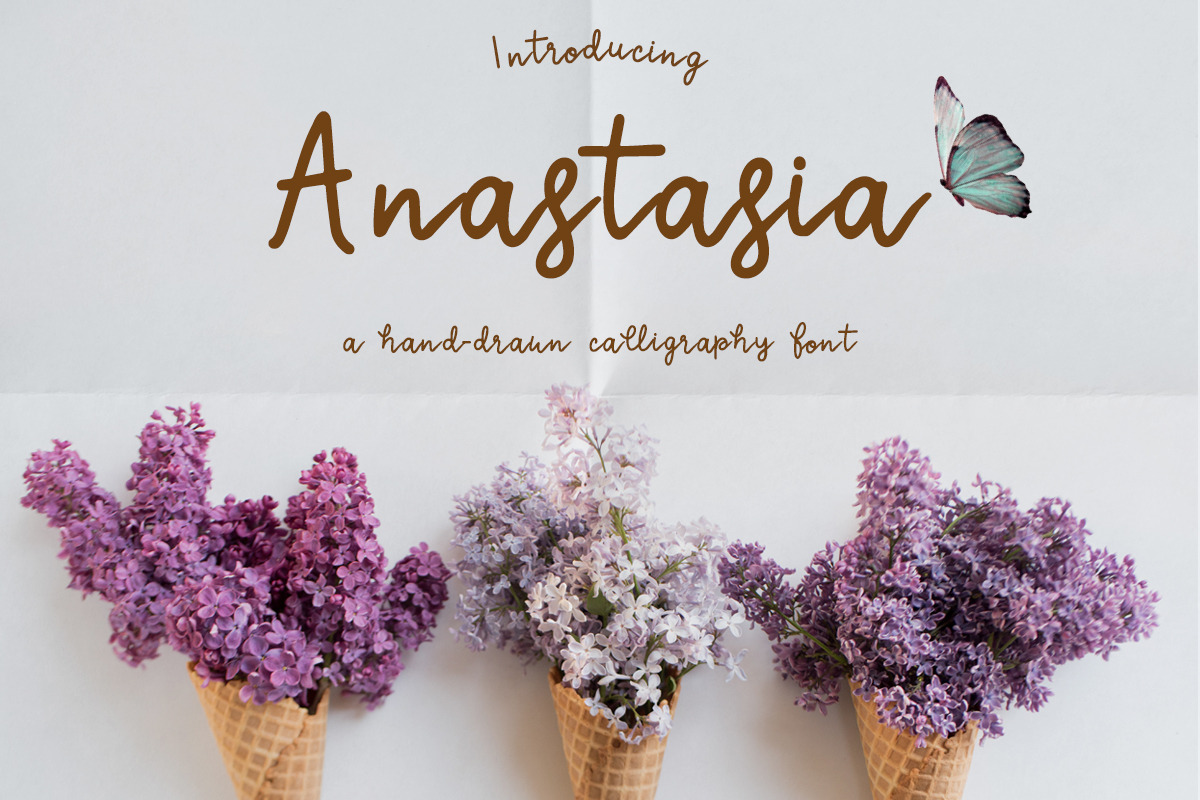
Anastasia a calligraphic font
Introducing Anastasia: a calligraphic font!
Anastasia is a magical handwritten font carefully created with a touch of elegance. It features a varying baseline, smooth lines, gorgeous glyphs and stunning alternates. It will elevate a wide range of design projects to the highest level, be it branding, headings, wedding designs, invitations, signatures, logos, labels, and much more!
As the nature of the characters is hand-drawn some "wonky" lines might be found which helps to add another touch of organic in the font that resonates with my personal style!